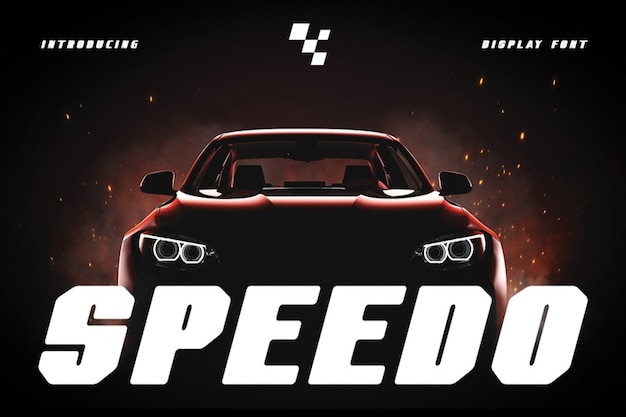
Speedo
Speedo Font
Speedo is a dynamic, high-energy font inspired by the fast-paced world of motorsport and racing. With sleek, angular lines and a sense of motion, it captures the excitement and power of speed. Perfect for racing event promotions, automotive branding, or sports logos, Speedo adds a bold, adrenaline-fueled touch to any high-octane design.